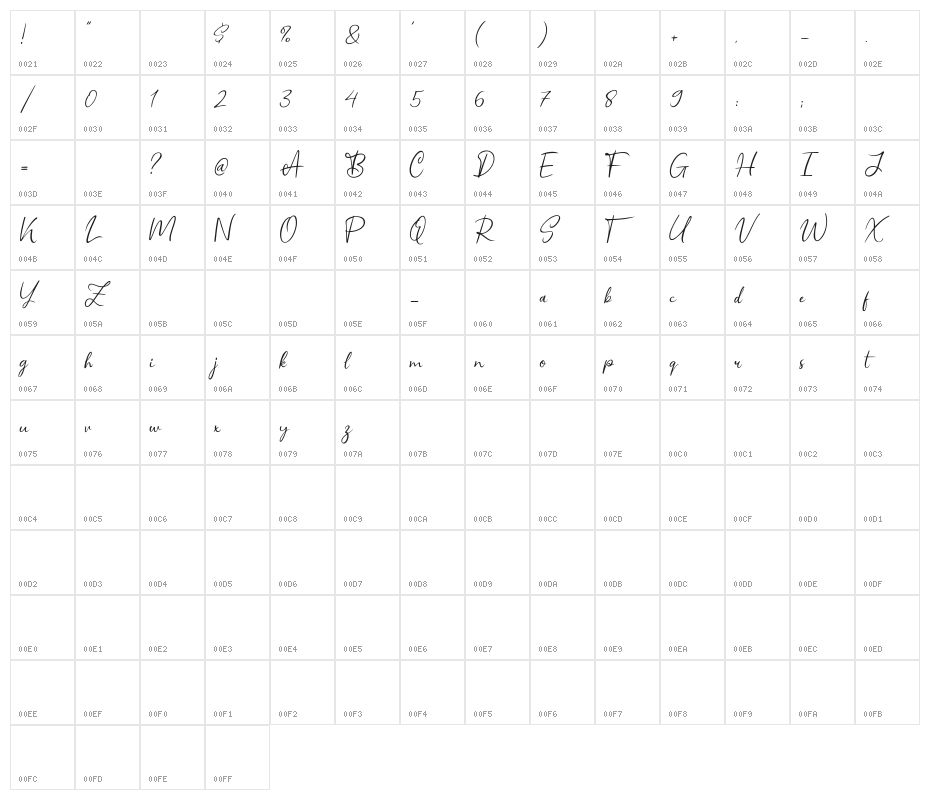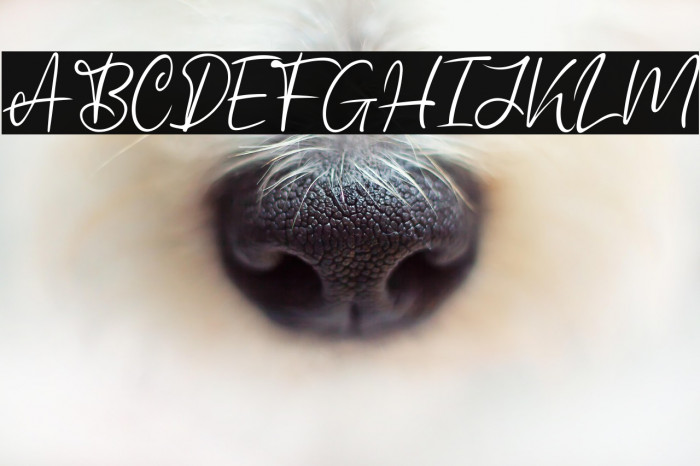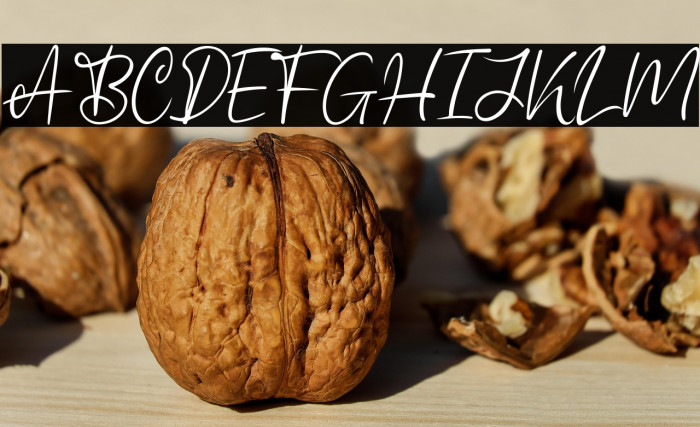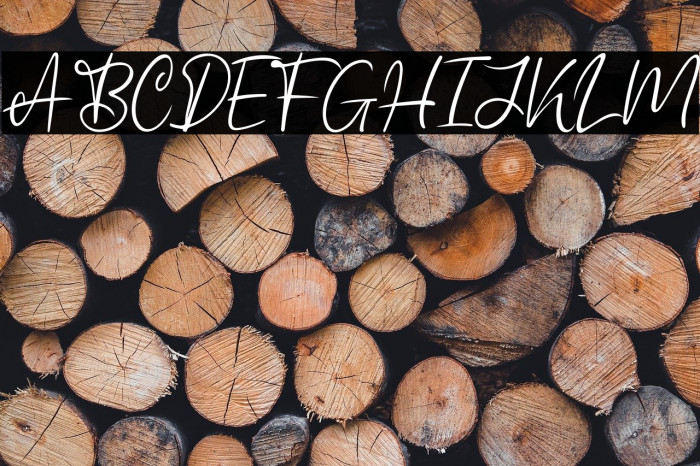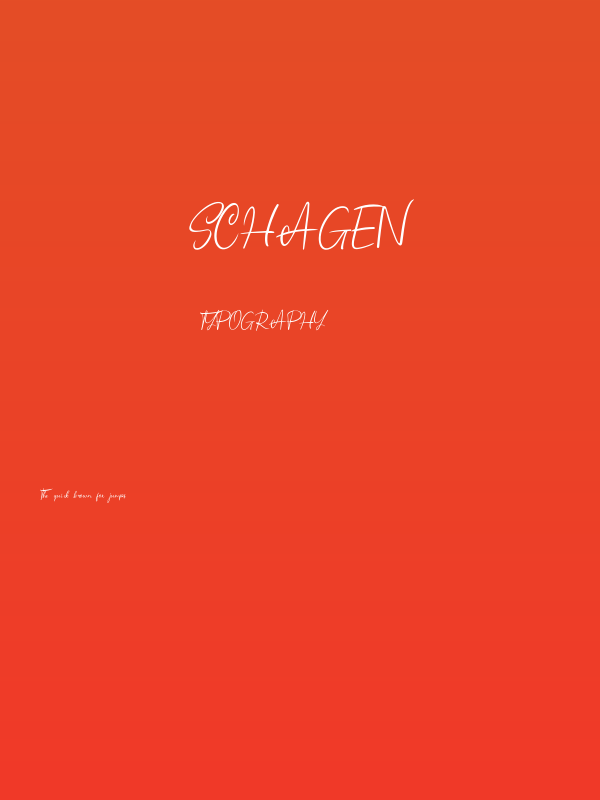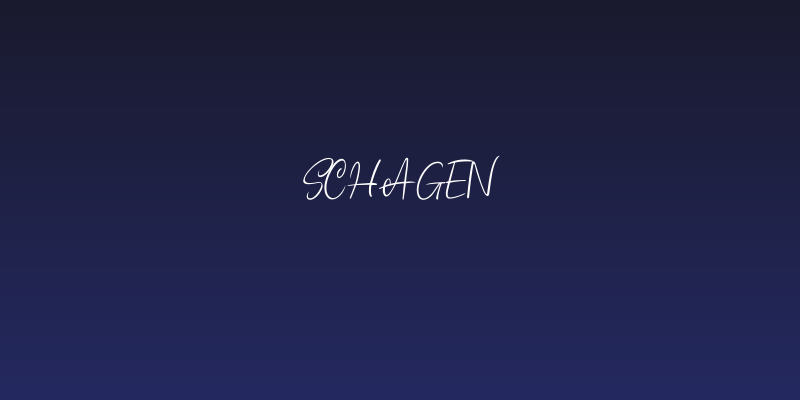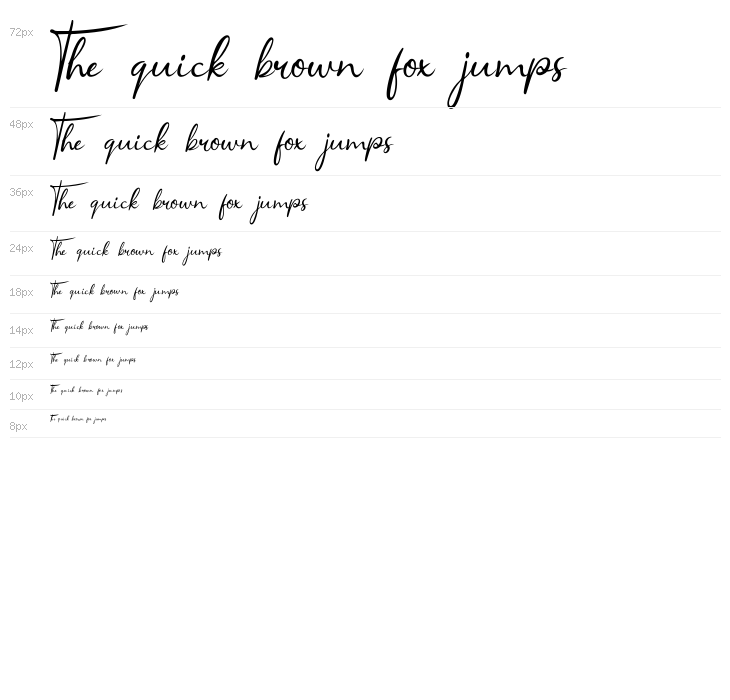
Schagen Font
Schagen Description
This font features an elegant and flowing script style, characterized by its cursive and interconnected letterforms. The uppercase letters are tall and graceful, with sweeping curves and loops that give a sense of fluidity and movement. The lowercase letters maintain a consistent style, with smooth transitions between strokes and a slightly slanted orientation. The numerals are designed to match the overall aesthetic, with a similar emphasis on curves and continuity. Special characters are integrated seamlessly, maintaining the font's cohesive appearance. This font exudes a sense of sophistication and is perfect for projects that require a touch of elegance and refinement.